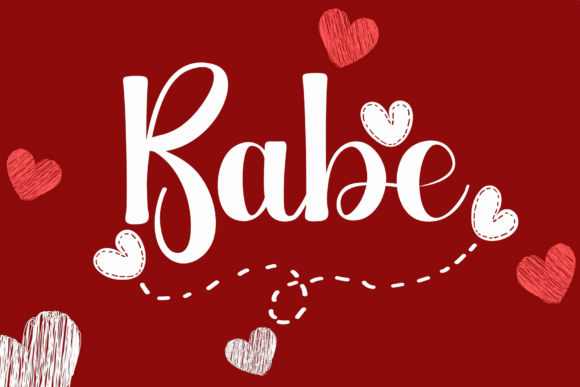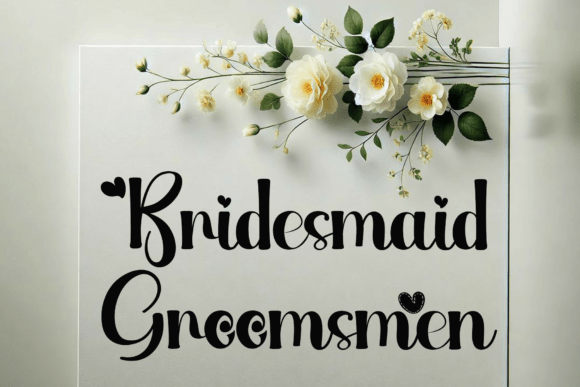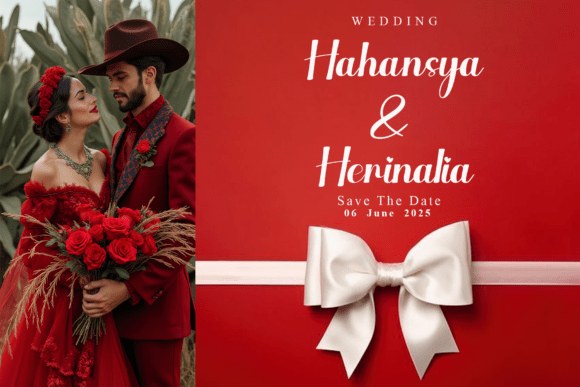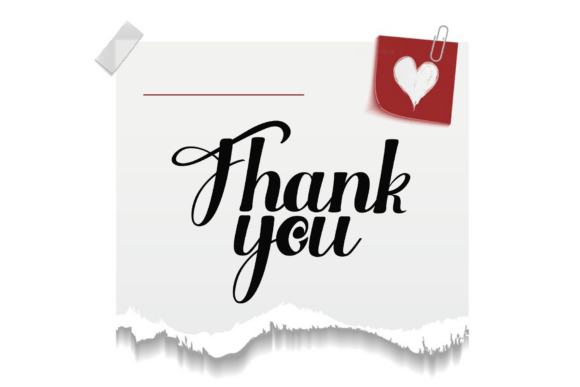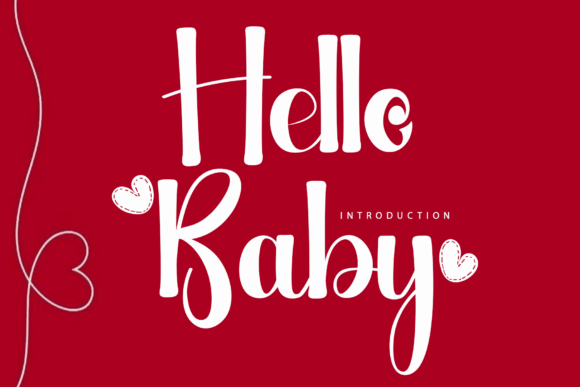
Hello Baby Font: Elevate Your Designs with Timeless Elegance
In the world of typography, fonts play a pivotal role in conveying messages, evoking emotions, and enhancing the aesthetic appeal of any design project. Among the myriad of fonts available, Hello Baby Font stands out as a beacon of elegance and modernity. This stylish handwritten font, with its contemporary atmosphere and impeccable form, is inspired by timeless classic calligraphy, making it a versatile choice for designers and crafters alike.
The Essence of Hello Baby Font
Hello Baby Font is not just any ordinary font; it’s a meticulously crafted typeface that embodies the perfect blend of traditional calligraphy and modern design. Its inspiration from classic calligraphy gives it a unique, sophisticated look that can instantly elevate the quality of any project. Whether you’re working on a branding project, a wedding invitation, a packaging design, or a digital interface, Hello Baby Font brings a touch of elegance and refinement.
Key Features of Hello Baby Font
- Contemporary yet Classic: Hello Baby Font strikes the perfect balance between modern design and timeless classic appeal. Its contemporary atmosphere makes it suitable for modern projects, while its classic inspiration ensures it remains relevant for years to come.
- Balanced and Varied: The font is designed to be balanced and varied, offering a range of styles and weights. This versatility allows designers to use it across different projects and applications, from headings and titles to body text.
- Impeccable Form: Every letter in Hello Baby Font is crafted with impeccable form, ensuring clarity and readability. This attention to detail makes it not only beautiful but also functional.
- Handwritten with a Personal Touch: Despite its elegance, Hello Baby Font retains a personal, handwritten feel. This characteristic adds warmth and personality to designs, making them more engaging and relatable.
Applications of Hello Baby Font
The versatility of Hello Baby Font makes it suitable for a wide range of applications. Here are some of the areas where this font truly shines:
- Branding and Logo Design: Use Hello Baby Font to create memorable logos and brand identities that stand out. Its unique and elegant appearance can help brands convey their message with style.
- Wedding and Event Stationery: The font’s classic inspiration and romantic feel make it perfect for wedding invitations, save-the-date cards, and other event stationery.
- Packaging Design: Elevate your product packaging with Hello Baby Font. Its contemporary yet timeless look can enhance the visual appeal of your products and make them more attractive to consumers.
- Digital Design: For digital projects, such as website design, mobile app interfaces, and social media graphics, Hello Baby Font can add a touch of sophistication and elegance.
Why Choose Hello Baby Font?
In a sea of fonts, Hello Baby Font stands out for several reasons:
- Unique Style: It offers a unique style that can help your designs stand out from the crowd.
- Versatility: Its versatility across different projects and applications makes it a valuable addition to any designer’s toolkit.
- Ease of Use: Designed with readability and functionality in mind, Hello Baby Font is easy to use and integrate into various design projects.
- Timeless Appeal: Its inspiration from classic calligraphy ensures that it remains stylish and relevant for years to come, avoiding the fleeting nature of trendy fonts.
Hello Baby Font is more than just a typeface; it’s a design statement. With its stylish handwritten appearance, contemporary atmosphere, and impeccable form, it brings a touch of timeless elegance to any project. Whether you’re a designer looking to elevate your branding projects, a crafter working on wedding stationery, or a digital artist seeking a sophisticated font for your next piece, Hello Baby Font is an excellent choice. Its versatility, readability, and unique style ensure that your designs not only look great but also stand the test of time.